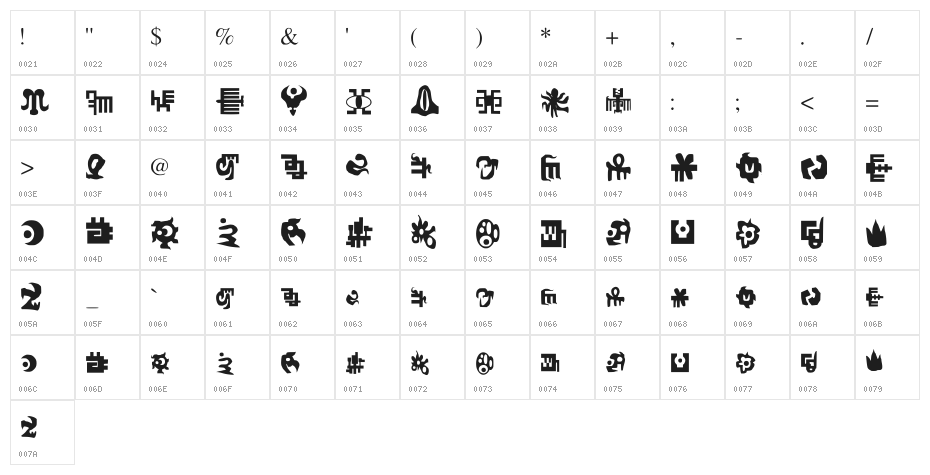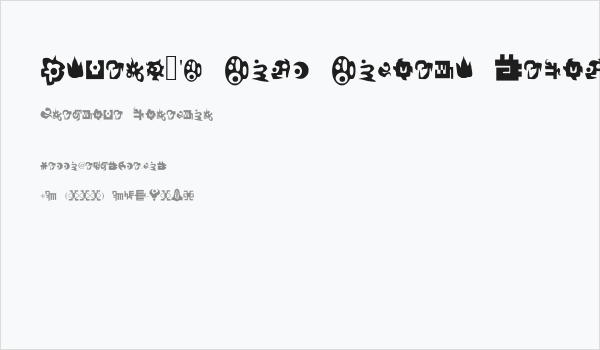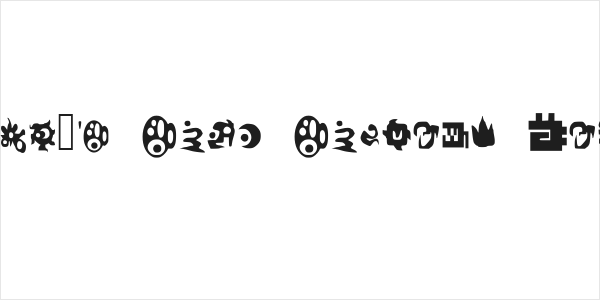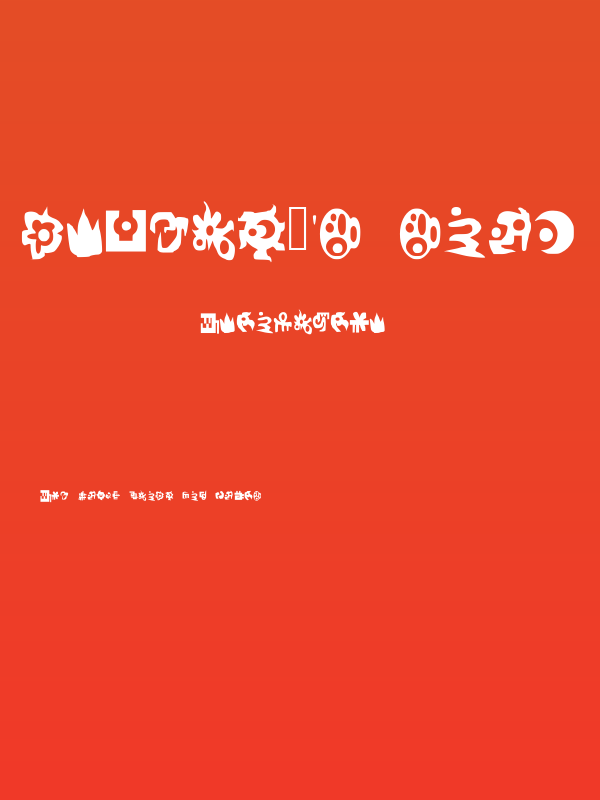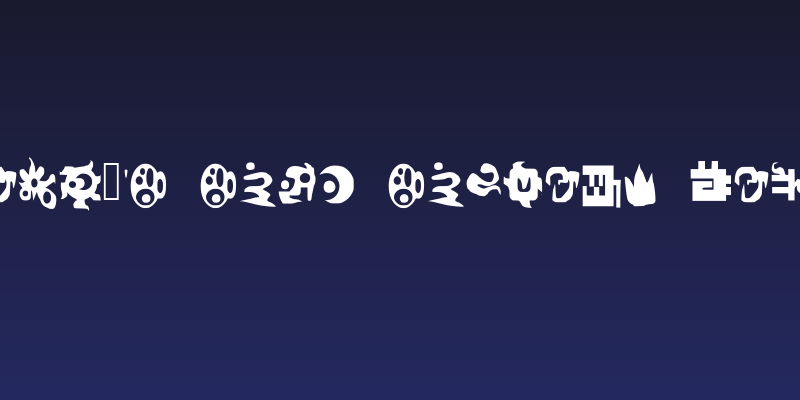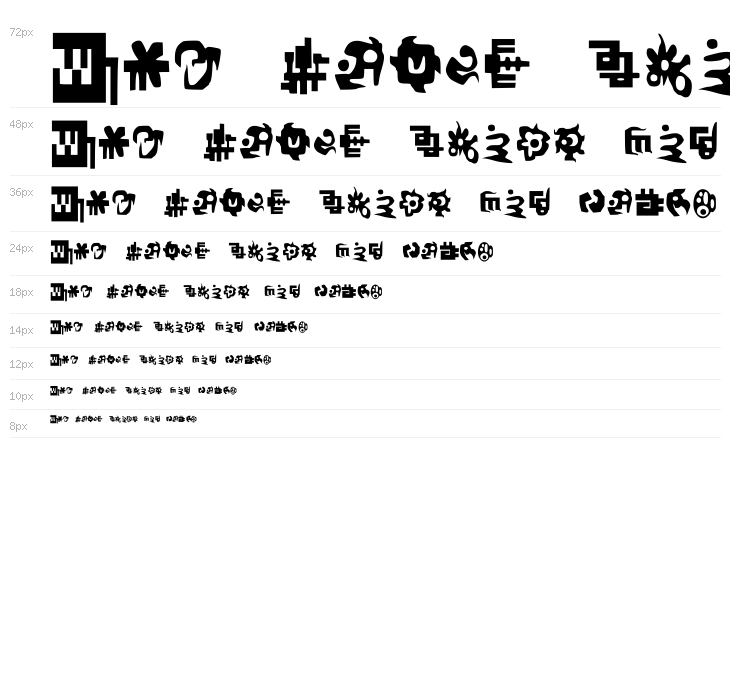
Wyvern's Soul Society Medium Font
Wyvern's Soul Society Medium Description
This font features a highly decorative and abstract design, with each character resembling a unique symbol or emblem. The characters are bold and intricate, with a variety of shapes that include curves, spikes, and geometric forms. The overall appearance is reminiscent of ancient or mystical scripts, making it ideal for projects that require a mysterious or otherworldly aesthetic. The characters are tightly spaced, adding to the dense and complex look of the text. This font is not suitable for body text due to its elaborate design but can be effectively used for headlines or artistic purposes.
| Overall Style | Mystical, Ancient, Decorative |
| Use Case | Headlines, Logos, Artistic designs |
| Proposed Projects | Ideal for fantasy-themed designs, game titles, movie posters, or any project requiring a mystical or ancient script aesthetic. |